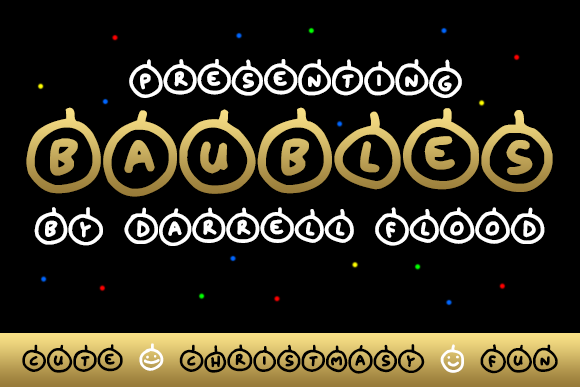
Prepare yourself for a Christmas-themed extravaganza with Baubles Font, a captivating display font that will transform your designs into a festive wonderland. Each letter is a twinkling ornament, a bauble hanging delicately from an invisible thread, ready to adorn your holiday creations with an enchanting charm.
Step into the realm of Christmas cheer with Baubles Font. Its playful and lighthearted nature will bring a smile to your face and create an atmosphere of pure joy. This sans serif font is more than just a font; it's a celebration, a joyous dance of characters that will bring your Christmas designs to life.
With Baubles Font, you can create unique and eye-catching graphics for your holiday greeting cards, posters, banners, and social media posts. Its easy-to-read nature ensures that your message will be communicated with clarity and charm. Whether it's a festive invitation, a Christmas menu, or simply a heartfelt message to your loved ones, Baubles Font will add a touch of magic to every word.
Imagine your Christmas designs adorned with Baubles Font, each letter a shimmering ornament, a reflection of the festive spirit. Your creations will radiate warmth, love, and the joyous spirit of the holiday season. It's like wrapping your designs in a cozy blanket of Christmas cheer, enveloping them in a heartwarming embrace.
Baubles Font is more than just a font; it's an experience. It's a way to express your love for Christmas, to share the joy of the season, and to create memories that will last a lifetime.